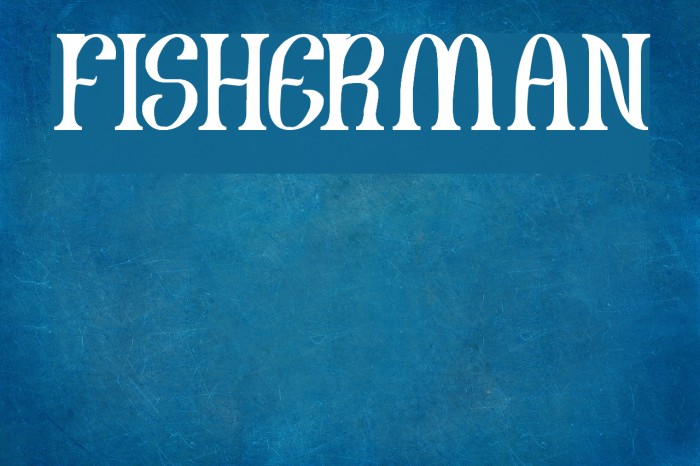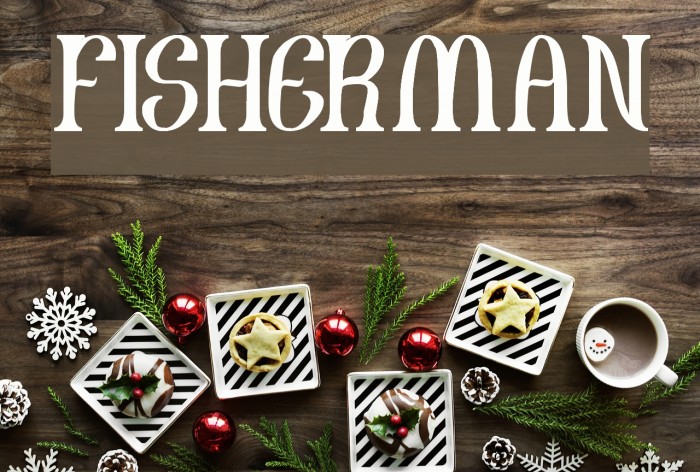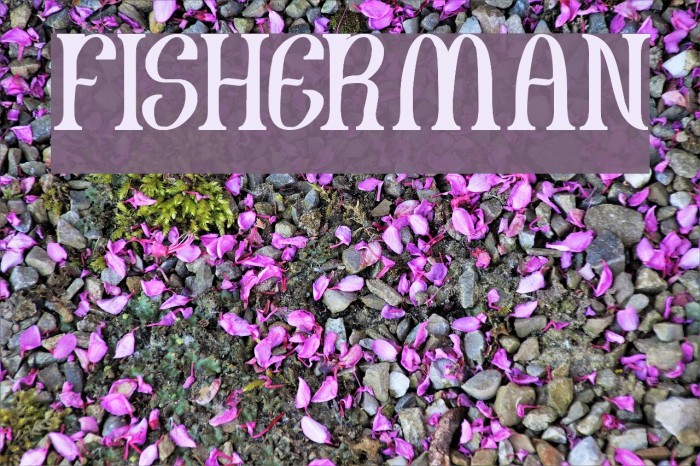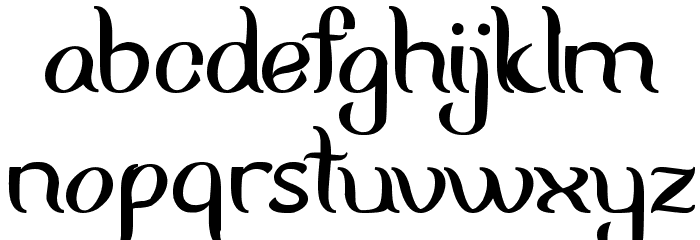
FISHERMAN Font
FISHERMAN Description
This font exhibits a unique and artistic style, characterized by its flowing curves and distinctive serifs. The uppercase letters are bold and have a whimsical flair, with exaggerated curves and strokes that give them a playful yet sophisticated appearance. The lowercase letters maintain this playful nature, with smooth, rounded edges and a consistent stroke width that ensures readability. The numbers and special characters are designed to complement the alphabet, featuring similar curves and stylistic elements. Overall, this font combines elegance with a touch of creativity, making it suitable for a variety of design projects.
A whimsical serif font with flowing curves and artistic flair from Uncategorized fonts.